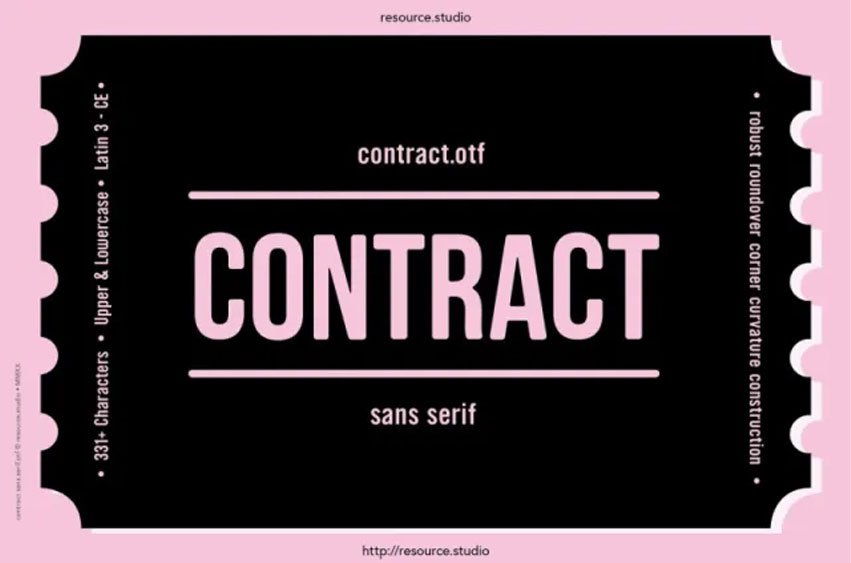
Contract Font is a New Typographic workhorse with robust roundover corner curvature construction.
Every letter has a unique and beautiful touch, which will make your design come alive!